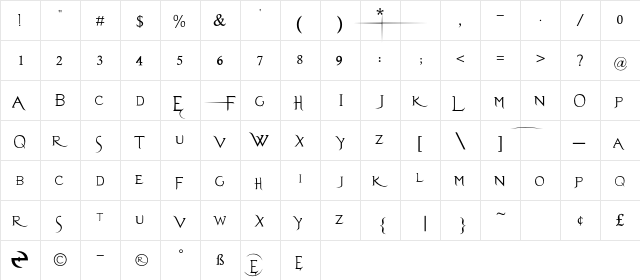
EvanescentMS Regular
Design Context for EvanescentMS Typeface
EvanescentMS is a composed and adaptable typeface that performs quietly and consistently across a wide range of design contexts.